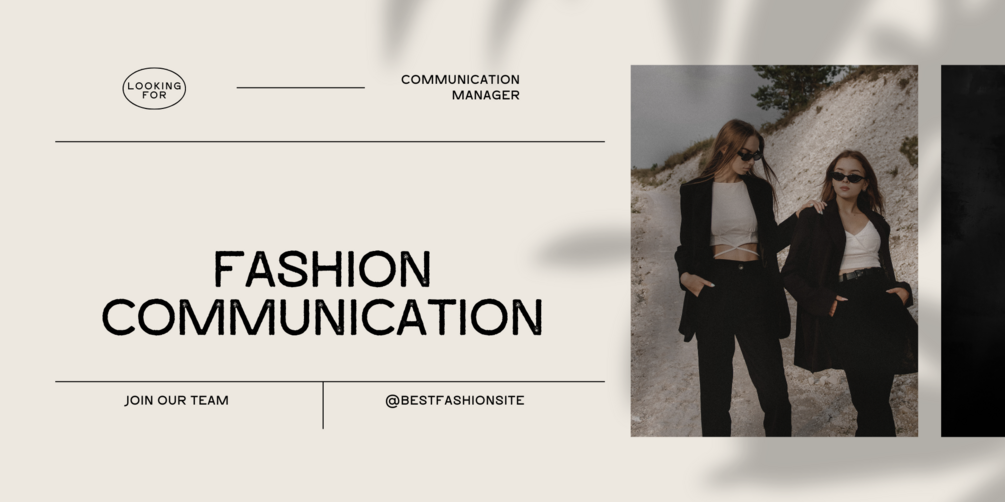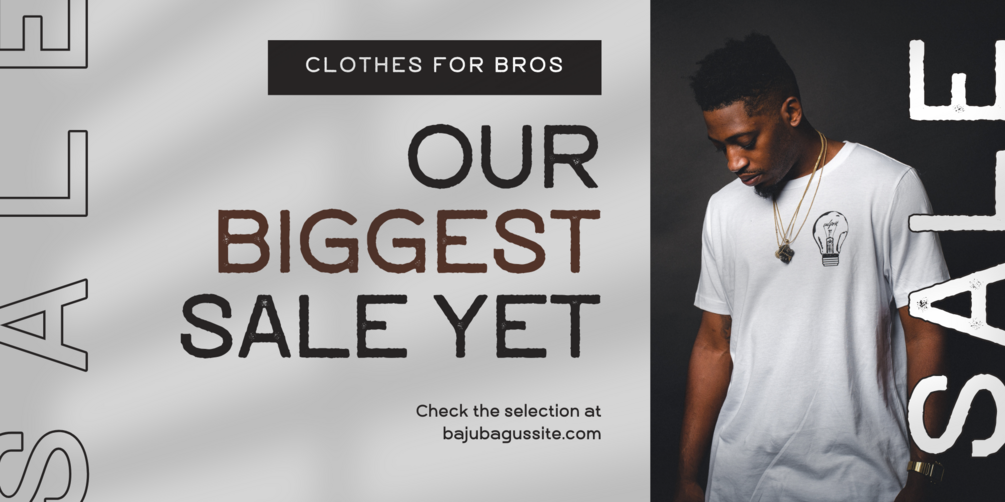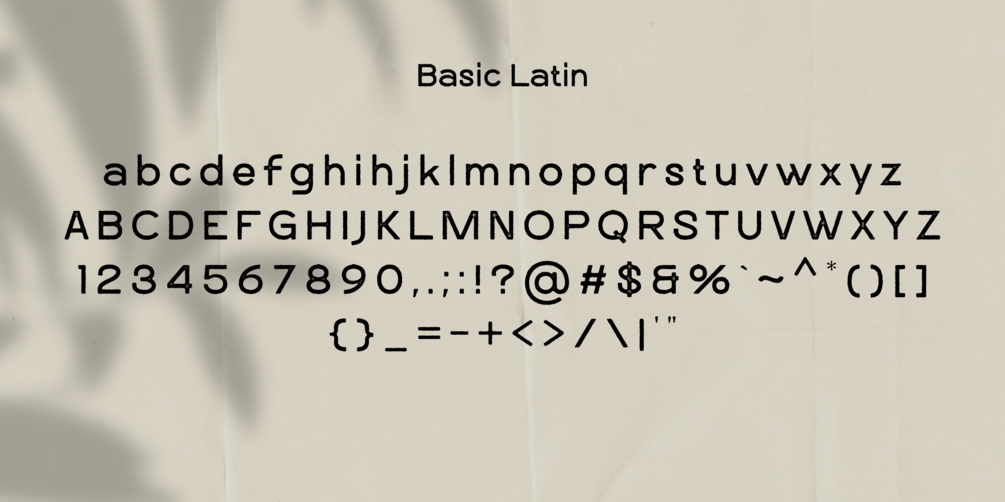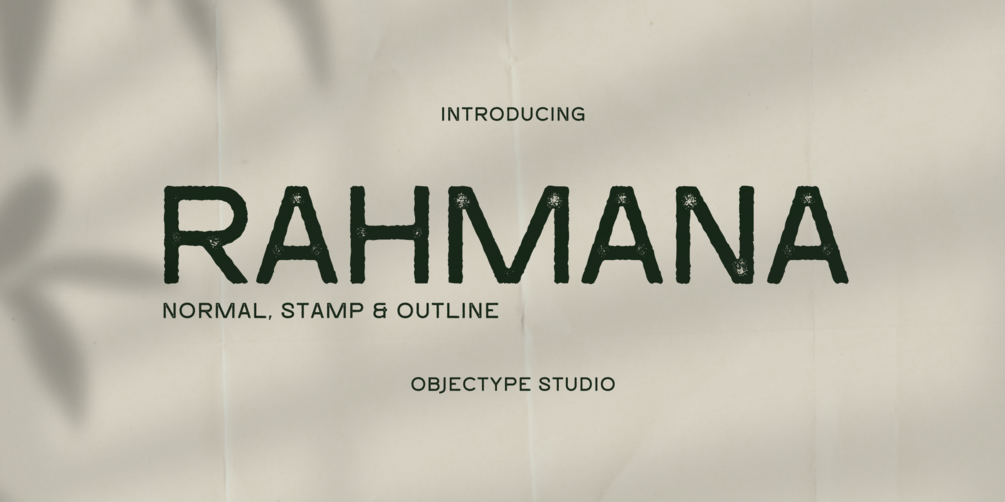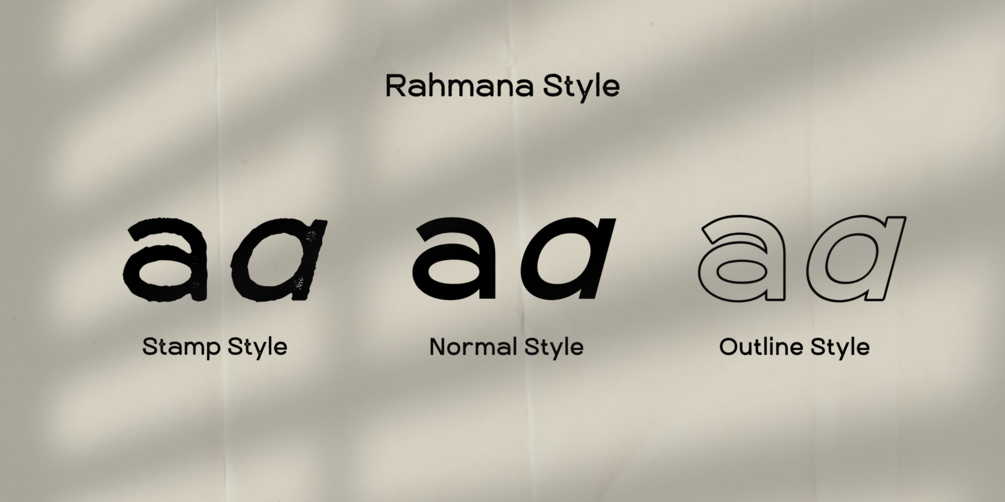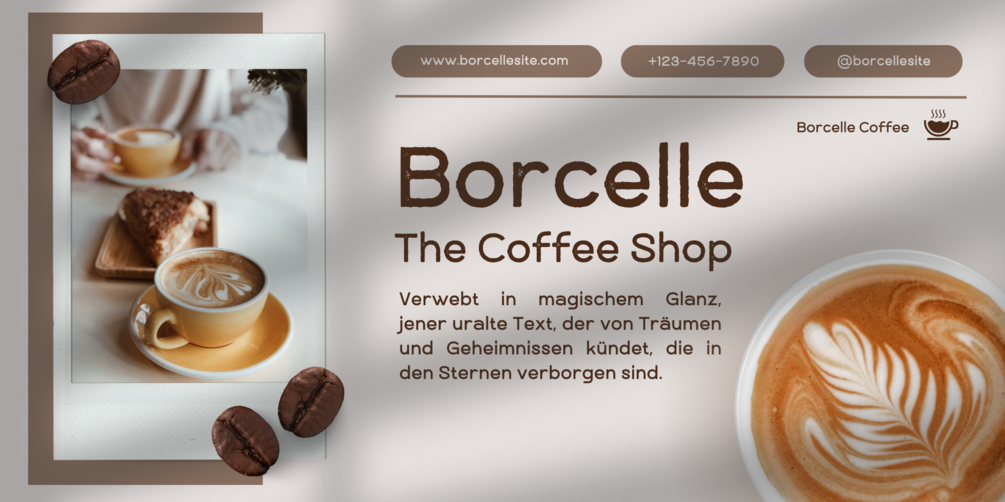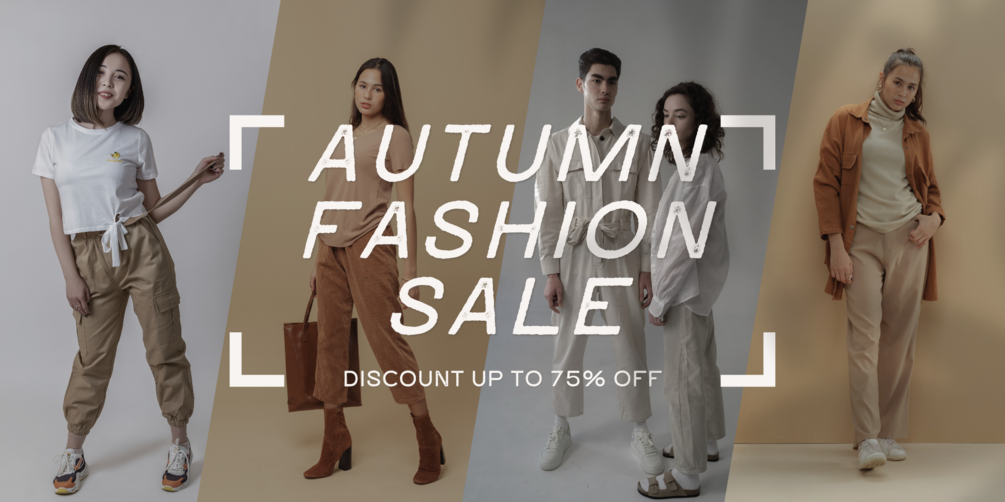
Rahmana: Vintage Charm for Creative Designs
About Rahmana Font Family
The Rahmana font is the perfect choice for your creative projects. With styles like Rahmana Regular, Rahmana Outline, and Rahmana Stamp, as well as slanted variations like Rahmana Italic, Rahmana Outline Italic, and Rahmana Stamp Italic, the Rahmana font provides flexibility in your designs.
Rahmana is suitable for a variety of projects, from rustic farm logo designs to vintage-style posters. With an authentic touch and unique character, the Rahmana font adds a special touch to every project that uses it.
Designed to meet the needs of vintage, artistic, and branding designs, the Rahmana font allows you to explore various typographic styles. Whether you are a typography enthusiast looking to experiment with different styles or a business seeking a distinct brand identity, Rahmana is the right choice.
So, whatever your creative project may be, Rahmana is ready to add a touch of vintage charm and hand-drawn authenticity.